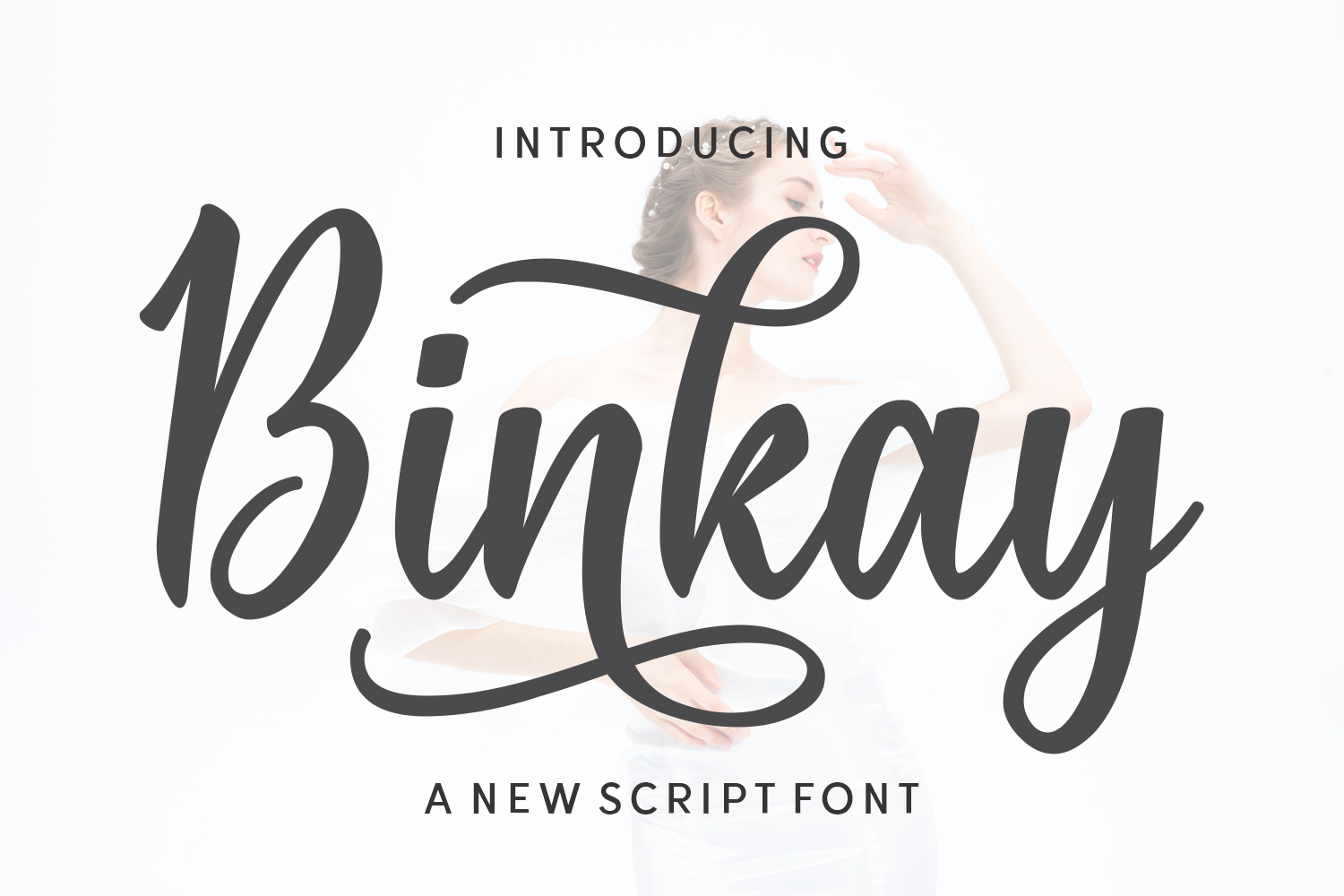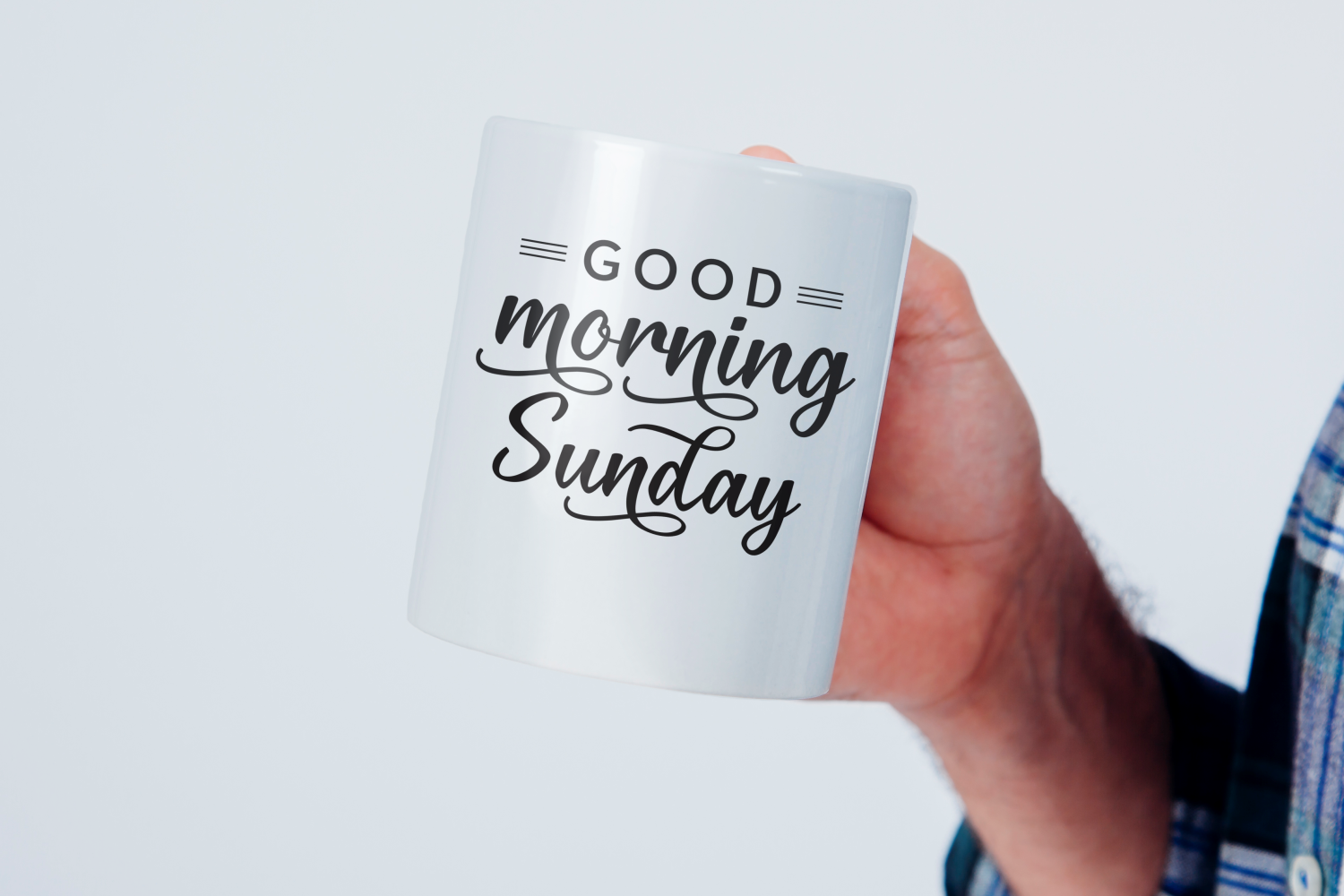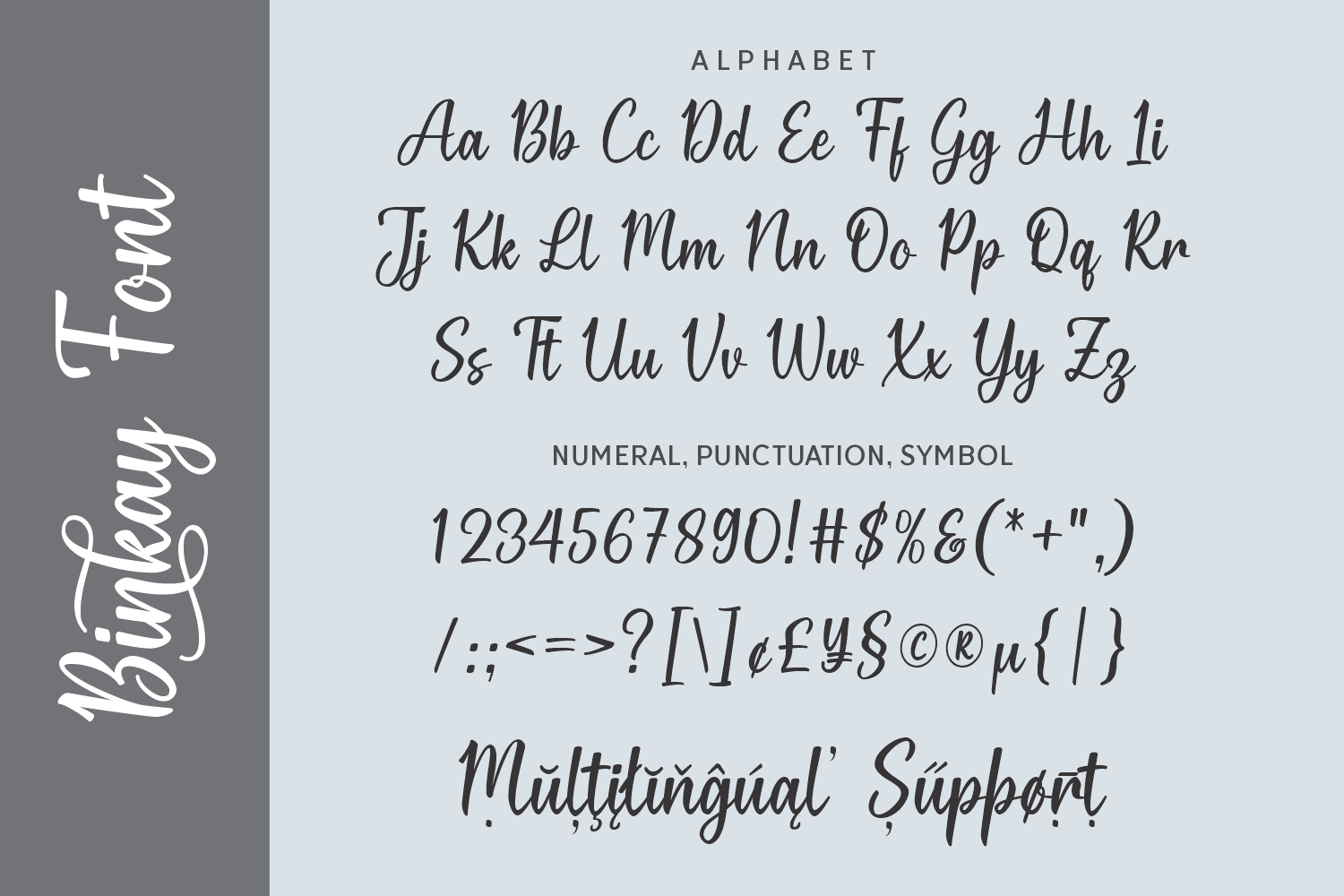
Binkay is a graceful and modern script font designed with soft curves and flowing swashes. Its stylish charm is perfect for wedding invitations, fashion branding, beauty product packaging, or any design that seeks to convey elegance with a contemporary twist.